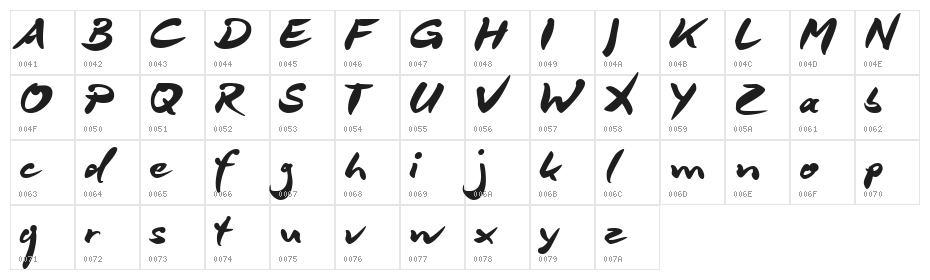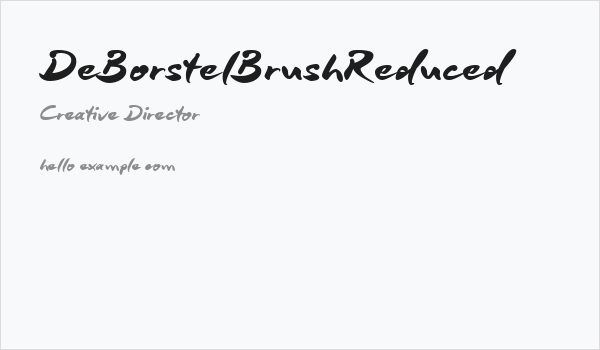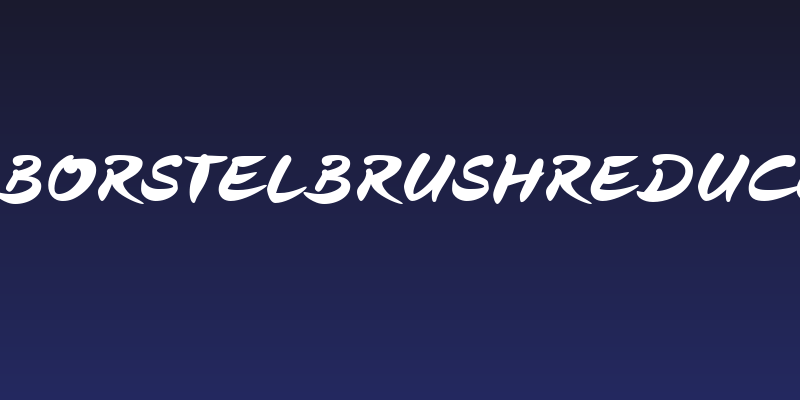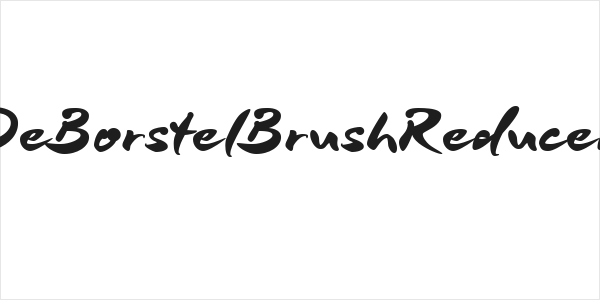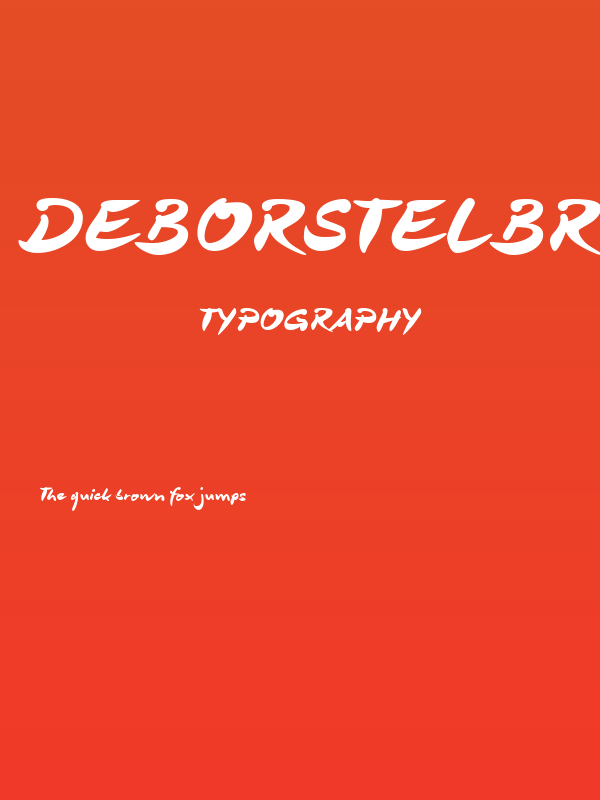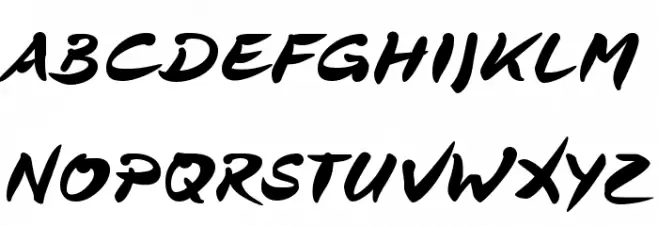
DeBorstelBrushReduced Font
DeBorstelBrushReduced Description
This font exhibits a dynamic and expressive brush style, characterized by its fluid and energetic strokes. The letters have a hand-painted appearance, with varying thickness that adds a sense of movement and vitality. The uppercase letters are bold and assertive, while the lowercase letters maintain a consistent flow, enhancing readability. The font's organic curves and sharp edges create a striking contrast, making it suitable for creative and artistic projects. Its unique style captures attention and conveys a sense of creativity and spontaneity.
| Use Case | Logos, Headlines, Posters |
| Proposed Projects | Ideal for branding, posters, invitations, and any project requiring a creative and artistic touch. |